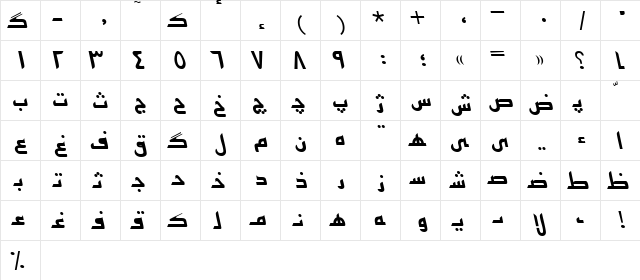
Persian7KufiSSK Italic
Persian7KufiSSK takes a measured approach to typography — its balanced proportions and neutral character make it a reliable workhorse for both digital and print work. The slanted form adds forward momentum and visual energy.